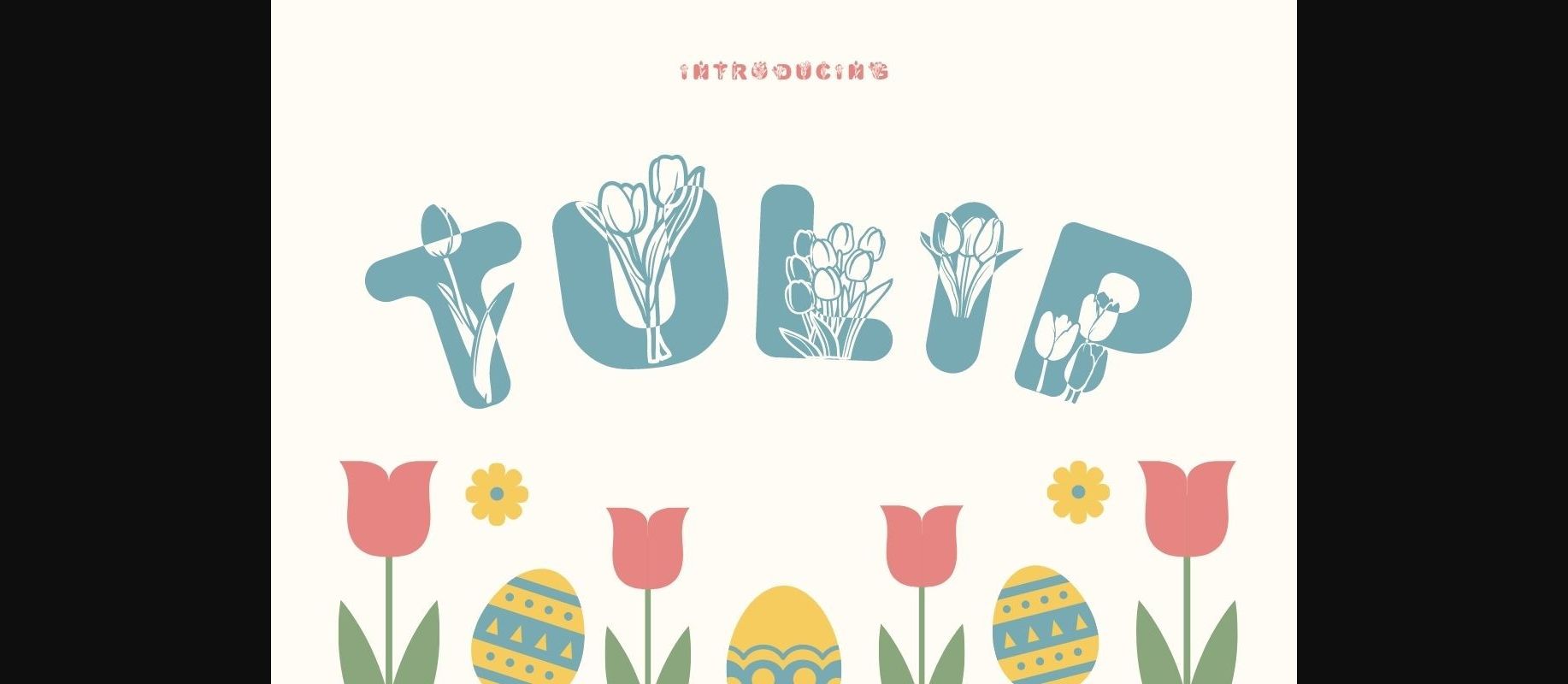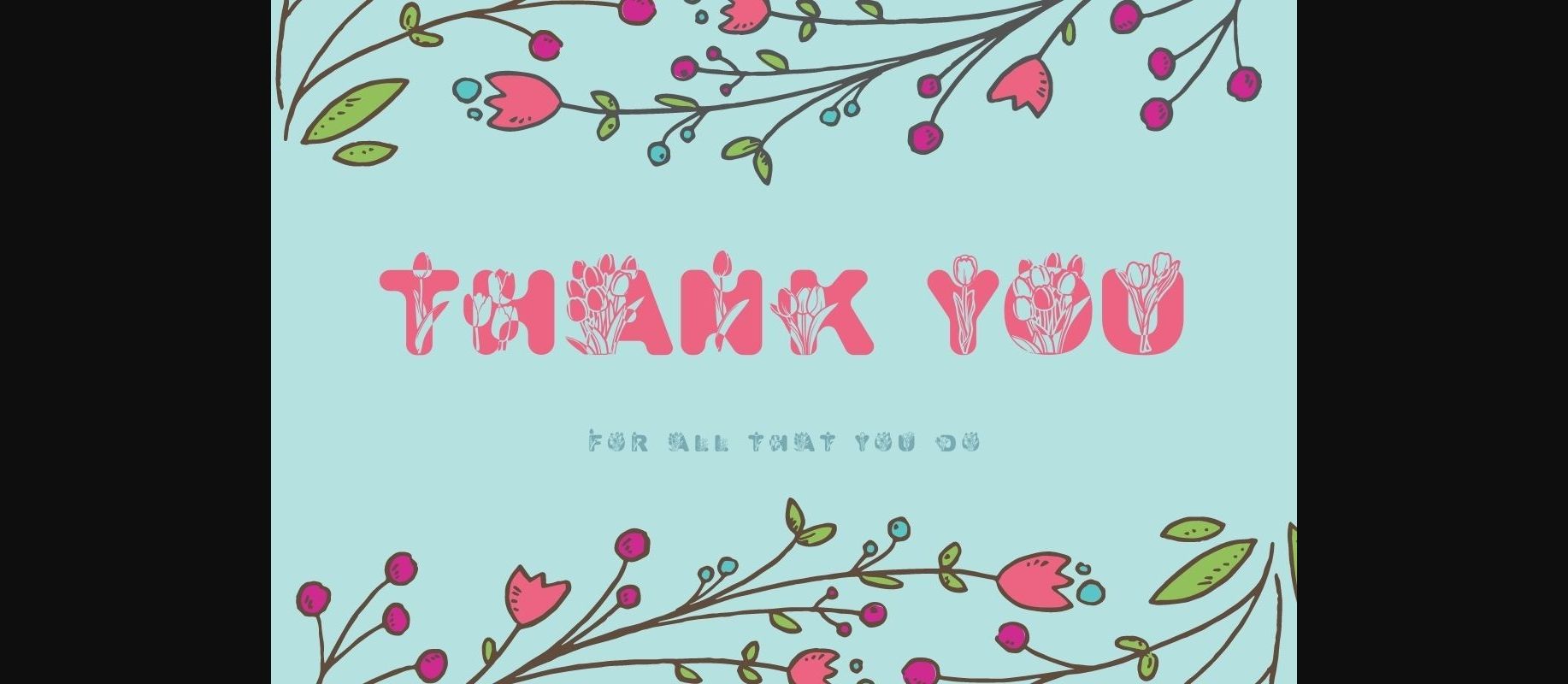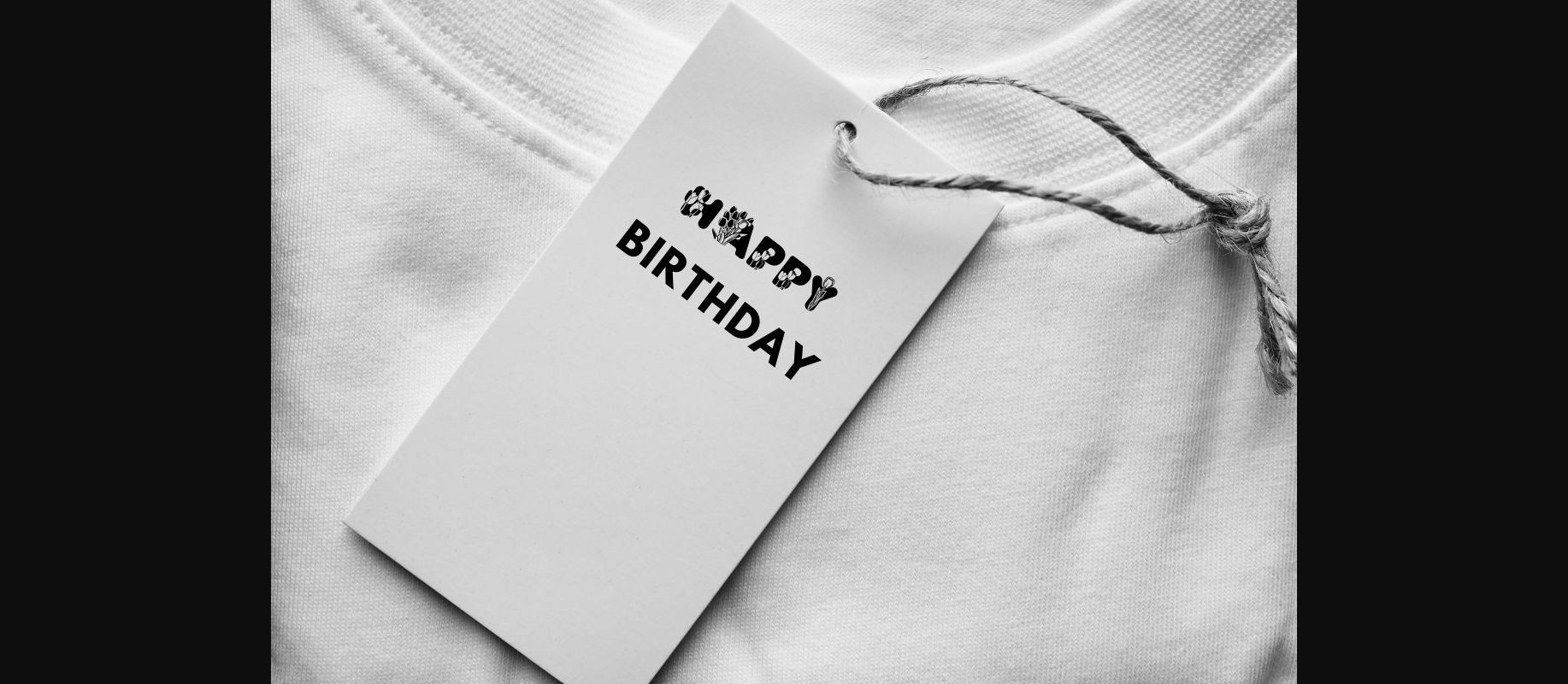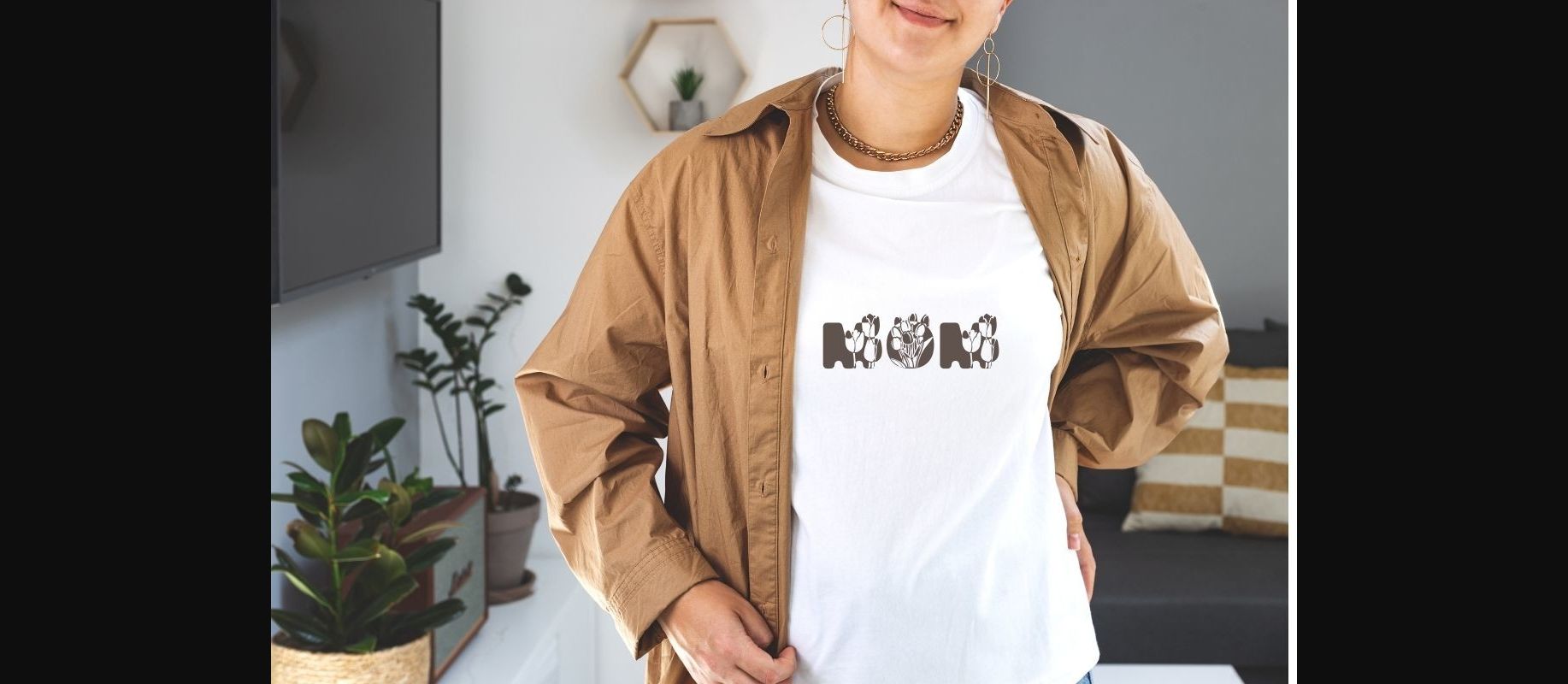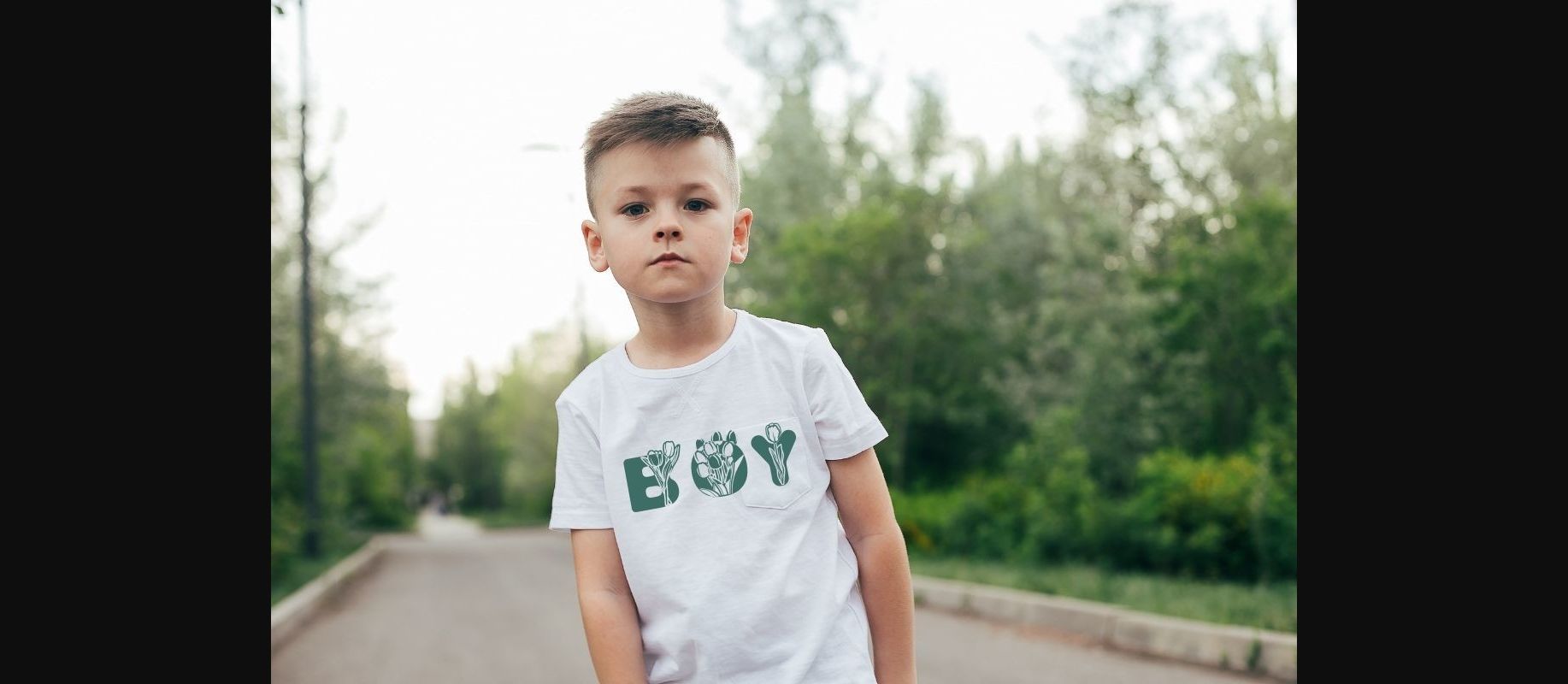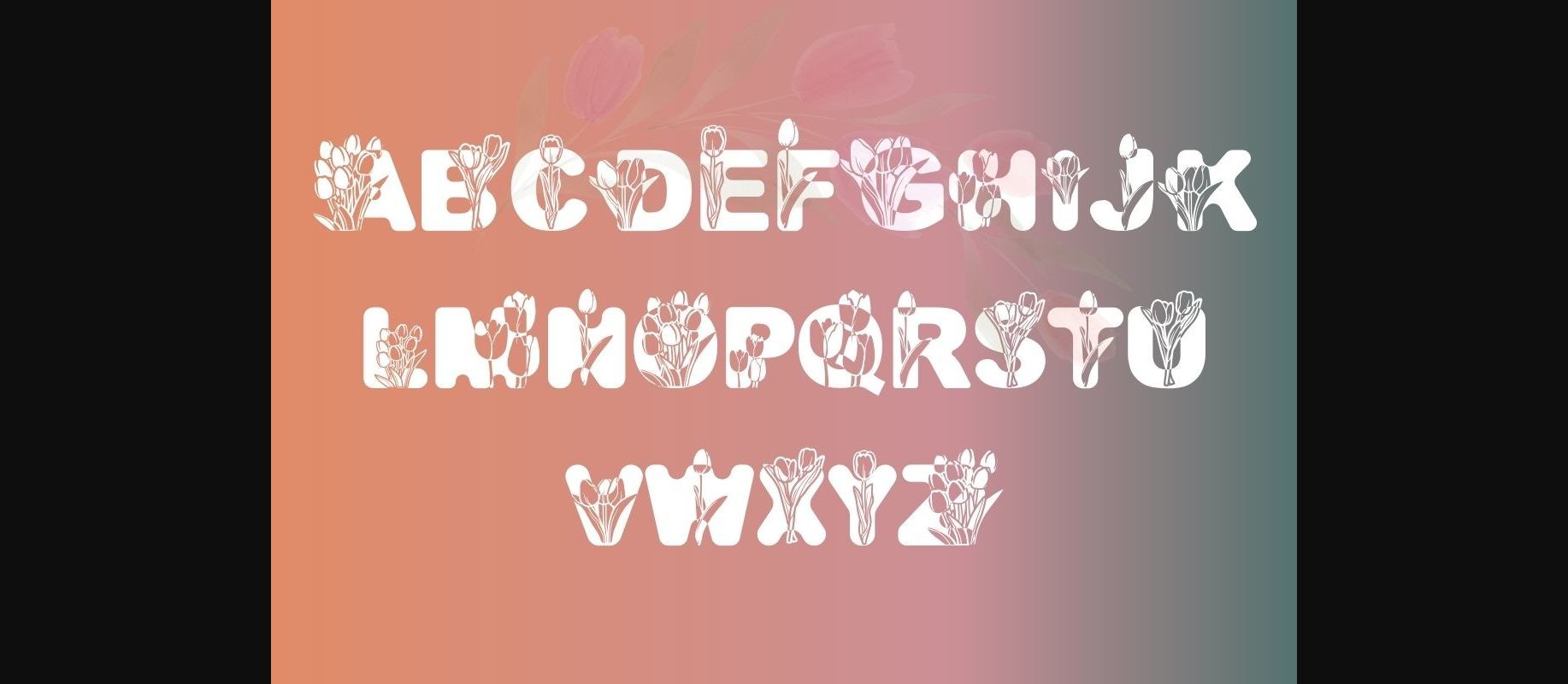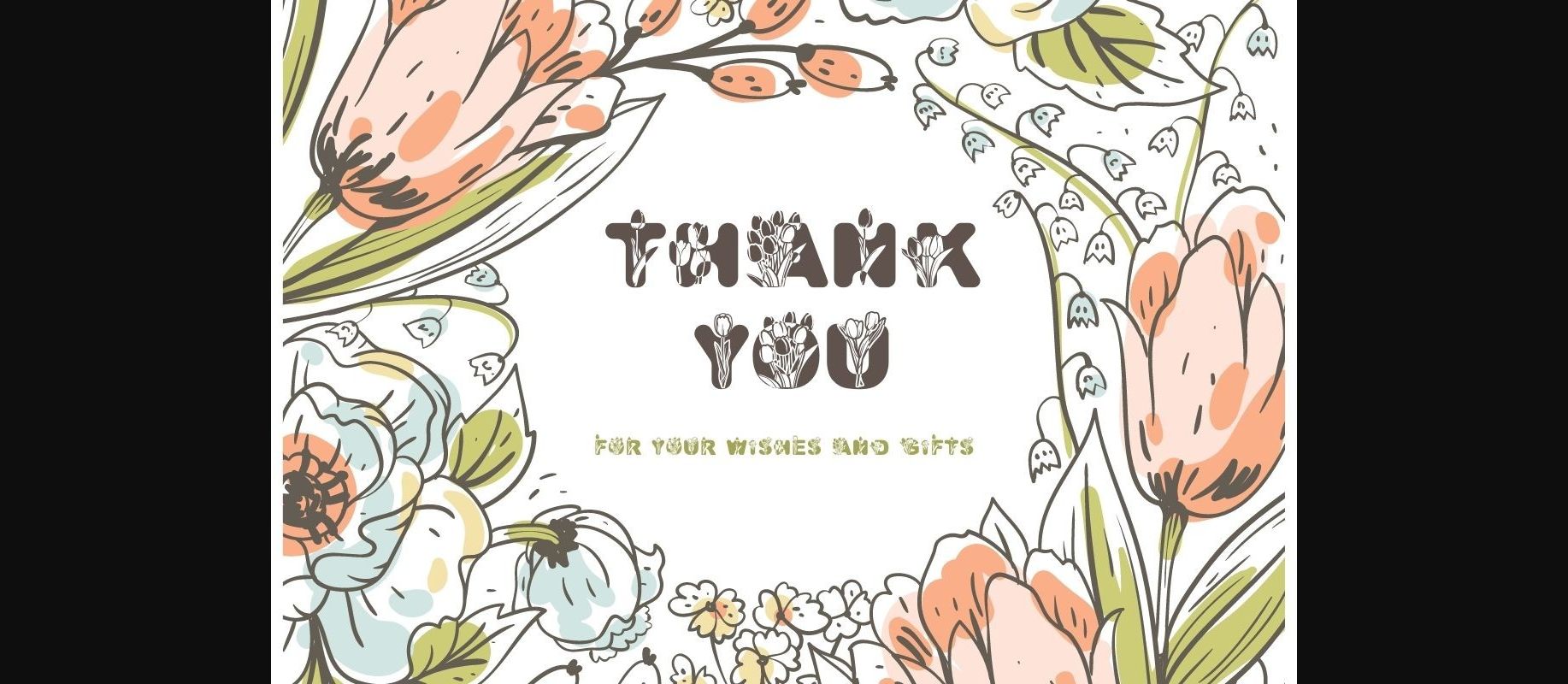
Tulip is a delicate and floral decorative font. Fall for its ravishing style and use it to create gorgeous wedding invitations, beautiful stationary art, eye-catching social media posts, and much more!